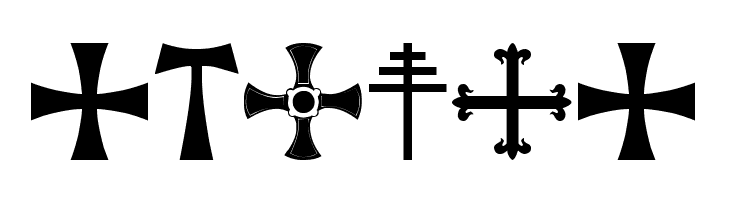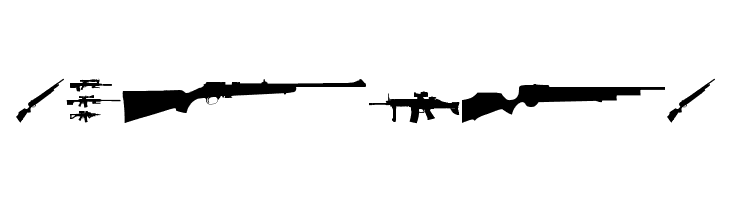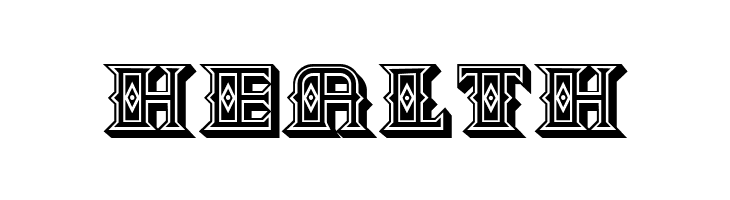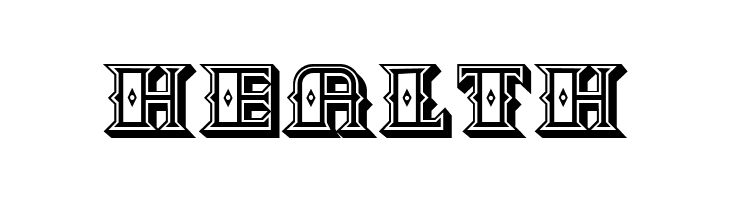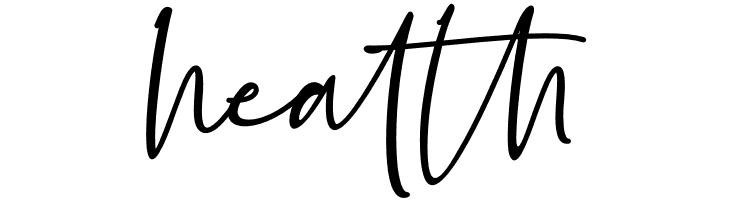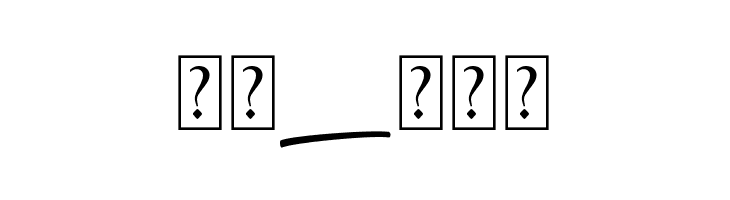
A decorative collection of diverse cross symbols with intricate designs.
A decorative font with characters shaped like rifles, offering a bold, thematic style.
A bold, decorative font with intricate geometric patterns and strong outlines.
A bold, decorative font with a hollow interior and geometric elements.
A bold, gothic blackletter font with sharp angles and intricate detailing.
A lively and expressive handwritten font with fluid strokes.
A dynamic, italicized handwritten font with fluid, connected letters.
A bold, dynamic script font with fluid, connected letterforms and a modern flair.
Invalid font display with placeholders.
A dynamic and expressive handwritten font with bold, fluid strokes.